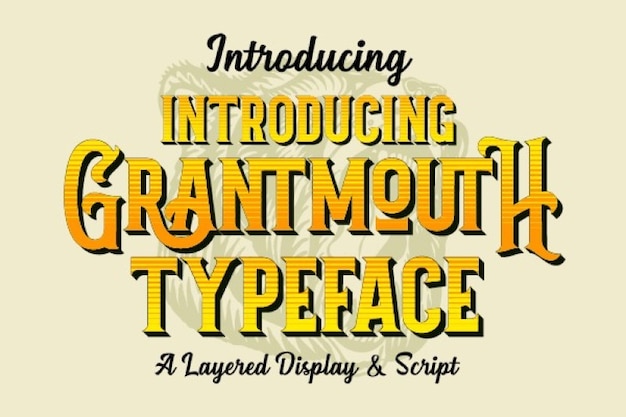
Grantmouth
Grantmouth Font
Grantmouth is a shiny font that will help you to add a special touch to all your creations. Create unique invitation cards or posters with this format. Download it right away to start creating!